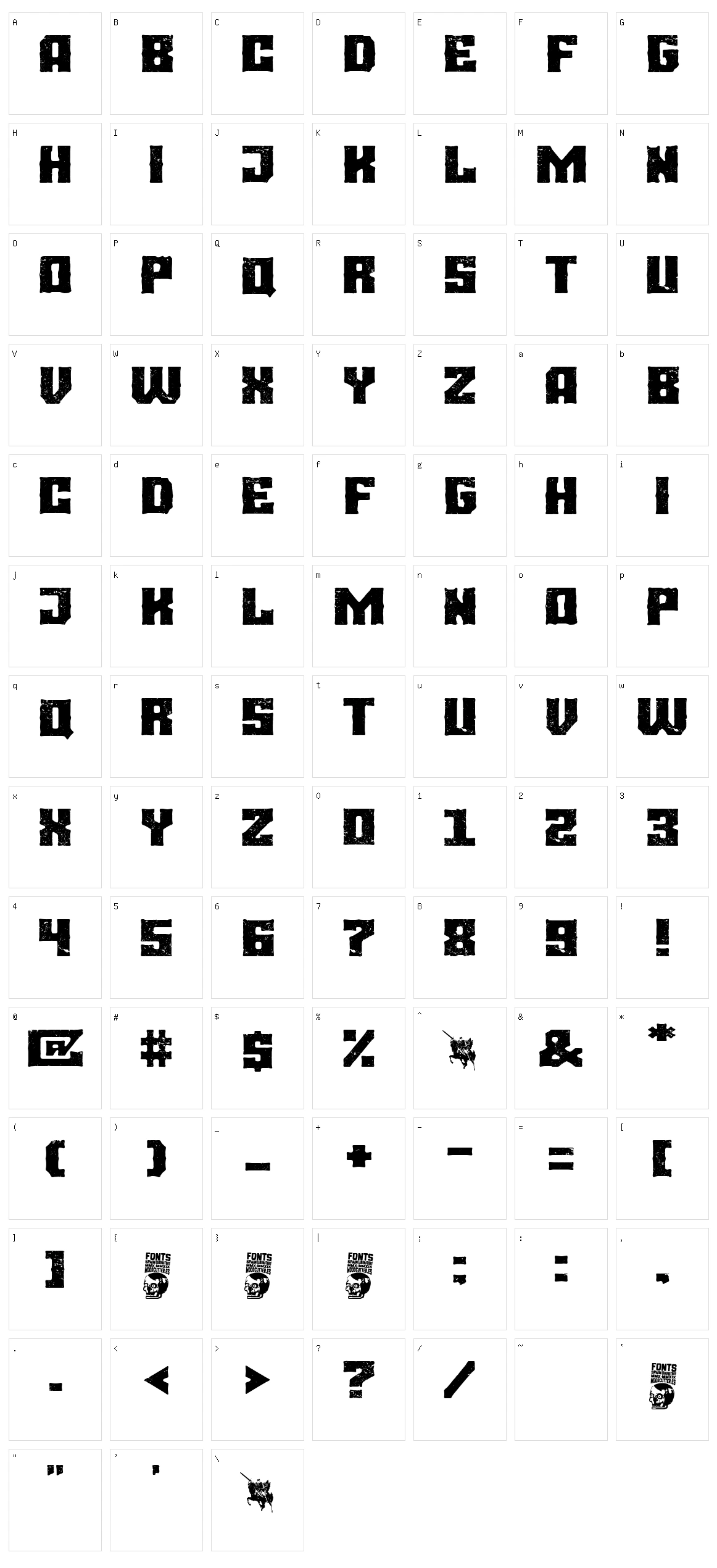
The free font Burgos City is carefully designed by Woodcutter, showcasing a thoughtful balance of creativity and usability and falls under the Eroded font style. When you download the ZIP file, it contains only 287.03 KB of font files, making it lightweight and quick to download. Please review the license details below to understand permitted usage and distribution rights. If license information is not available, we recommend using this font for personal projects only or contacting the author directly for commercial usage permissions.